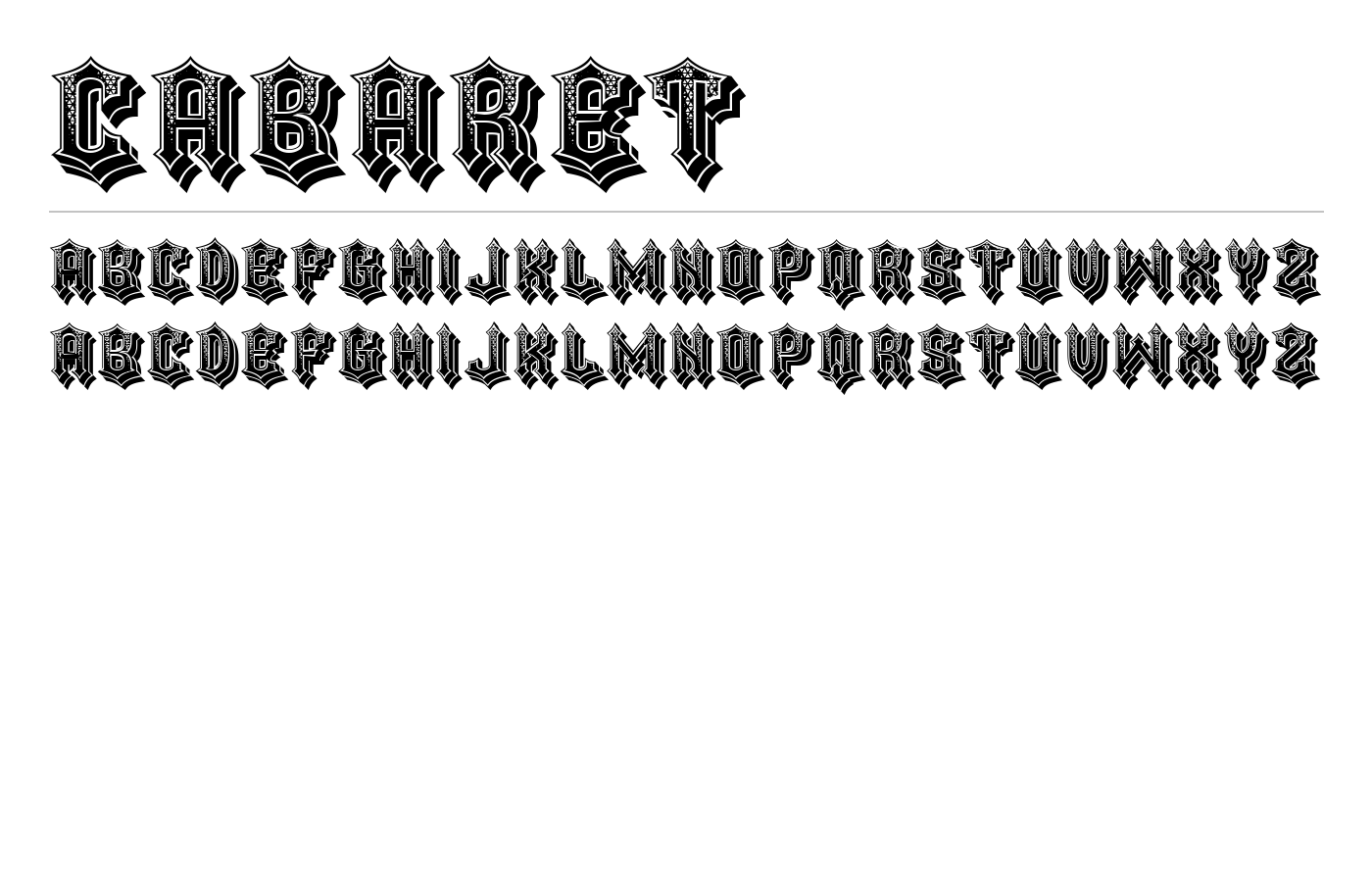
Cabaret Font is a bold, ornate display typeface featuring intricate Victorian-inspired details and sharp, dramatic serifs that create a vintage, theatrical flair. Its strong presence and decorative style make it perfect for eye-catching headlines, posters, and branding that calls for a nostalgic yet striking personality. This font works especially well in contexts where a sense of elegance, flair, and old-world charm is desired.
Cabaret Font
About Cabaret Font
| Font family | Cabaret Font |